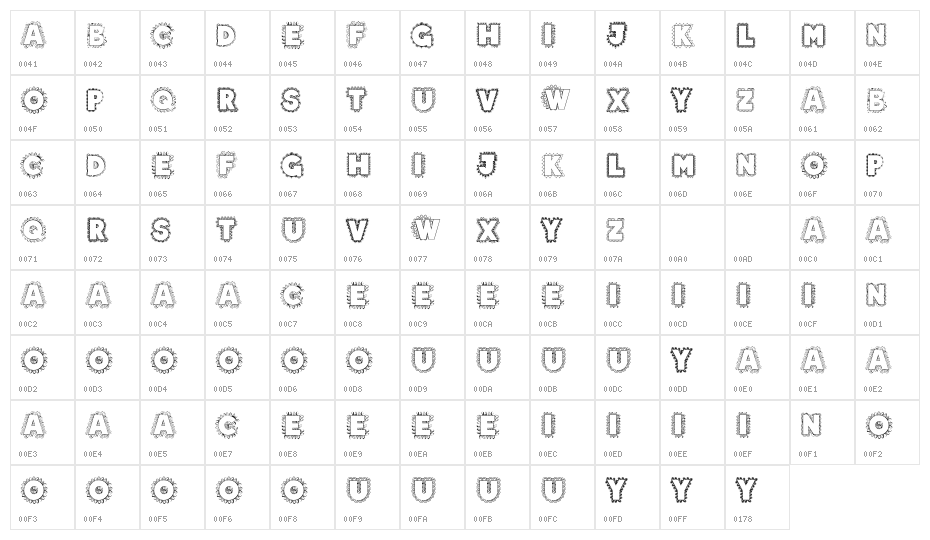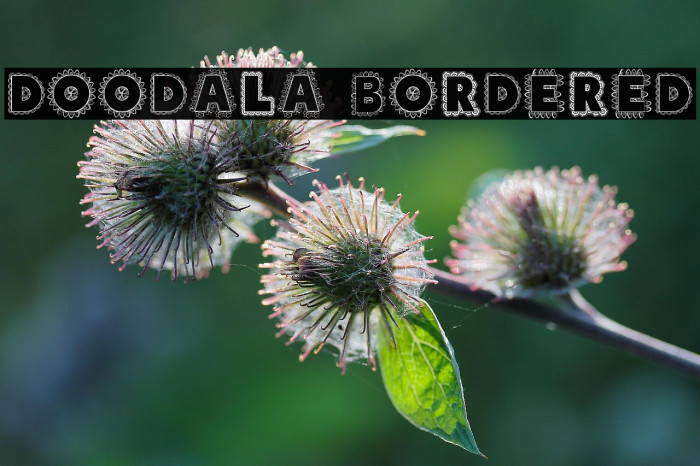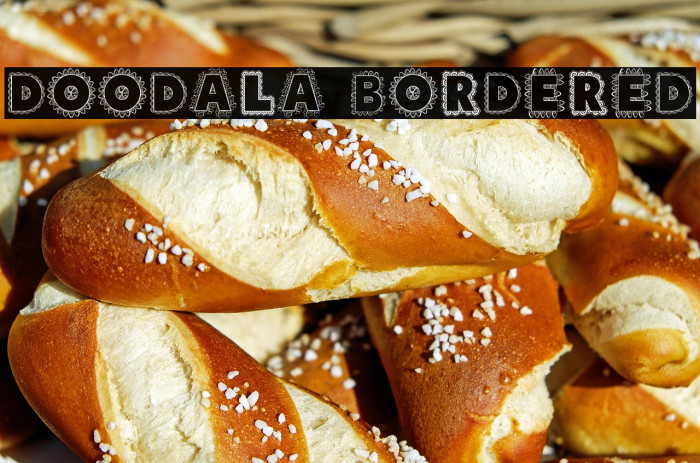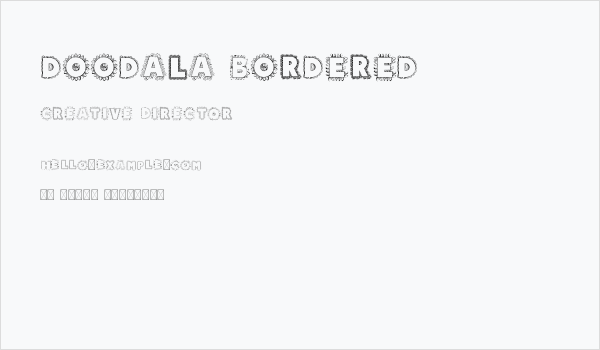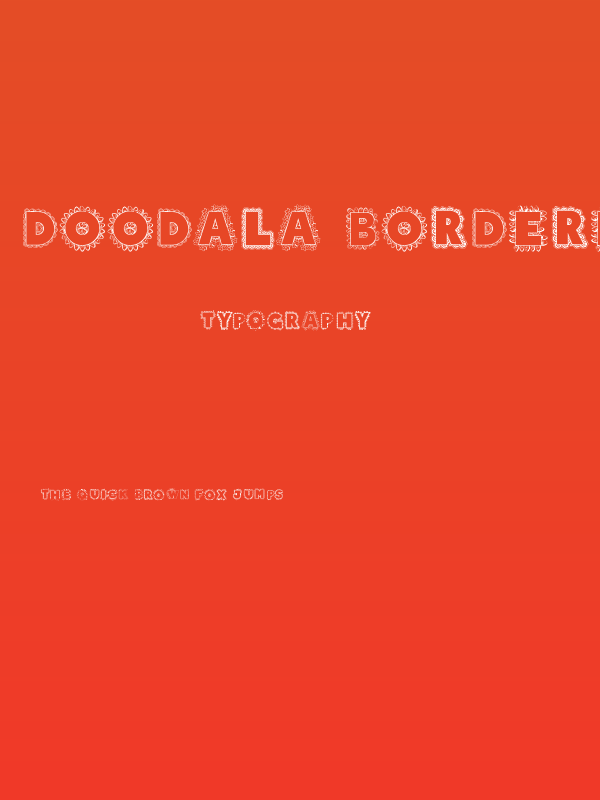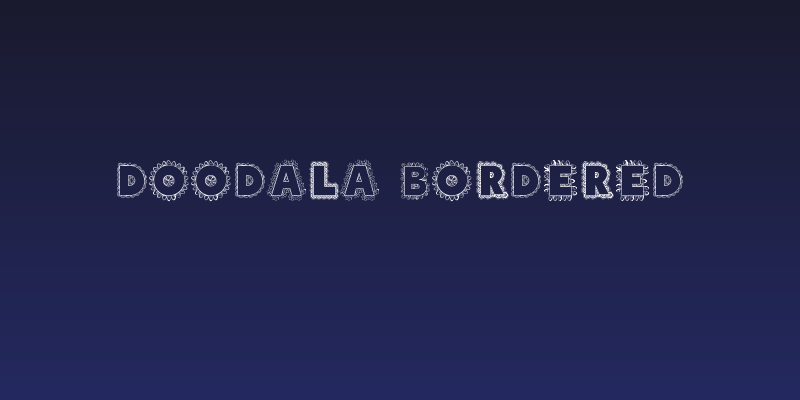
Doodala Bordered Font
Doodala Bordered Description
This font features a playful and decorative style with each character surrounded by a unique border pattern. The uppercase letters are bold and eye-catching, with intricate designs that give a sense of whimsy and creativity. The borders vary from scalloped edges to geometric shapes, adding a layer of complexity and visual interest. The overall appearance is both artistic and structured, making it suitable for projects that require a touch of fun and uniqueness. The font does not include lowercase letters or numbers, focusing solely on uppercase characters and special symbols, which are also adorned with decorative borders.
| Proposed Projects | Ideal for children's book covers, playful posters, creative branding, and decorative headings. |